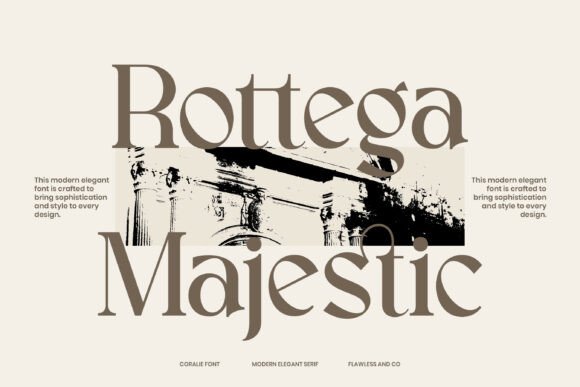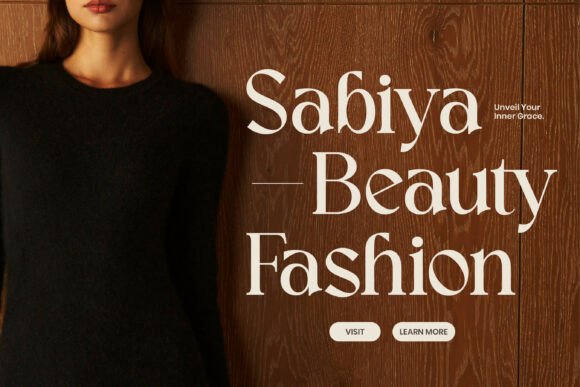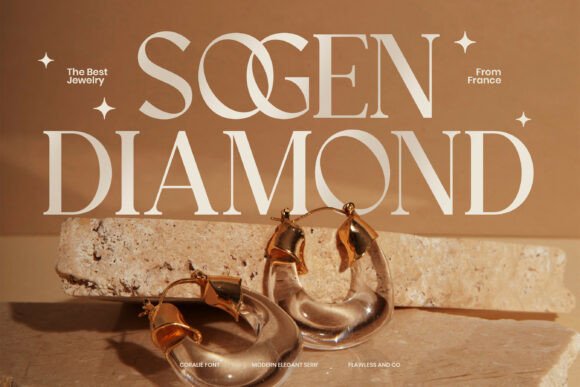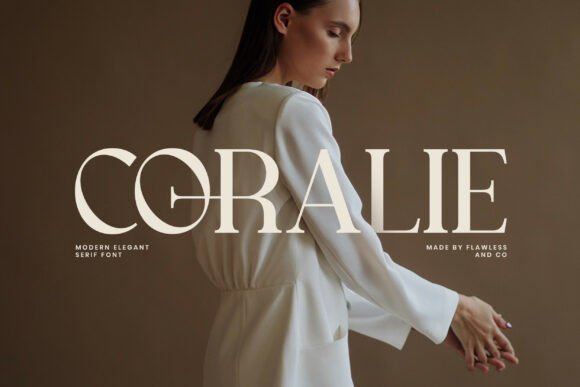
Introduction to Coralie Font
Coralie is a modern elegant serif font that embodies sophistication and grace in every curve.
Designed to bring timeless beauty and contemporary flair together, Coralie exudes confidence and refinement — making it the perfect choice for luxury branding, editorial designs, fashion projects, and stylish product packaging With its clean letterforms, unique ligatures, and smooth contrast between thick and thin strokes, Coralie adds a touch of elegance and modern professionalism to any visual identity.
Key Features of Coralie Font
Why Choose Coralie Font?